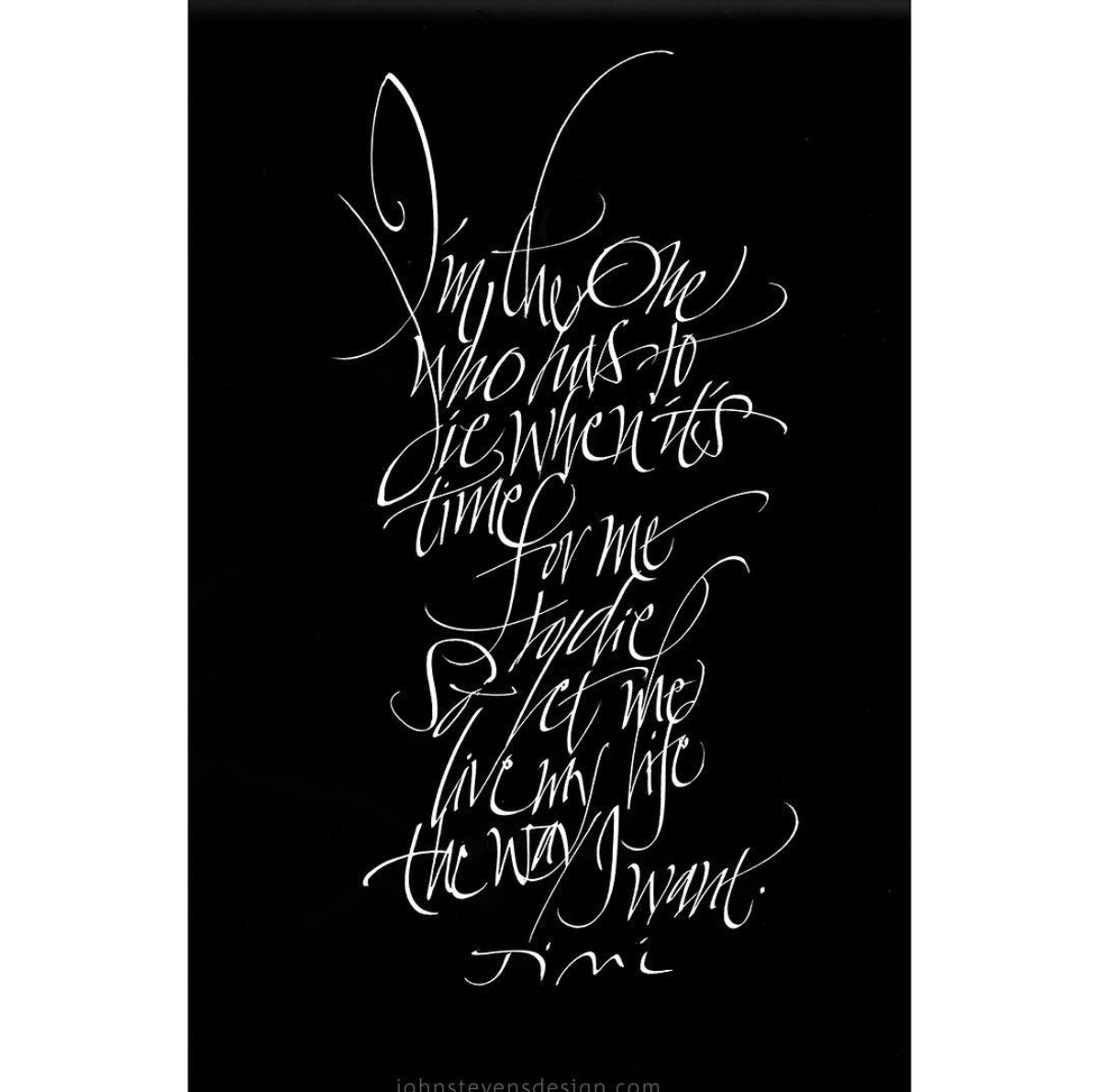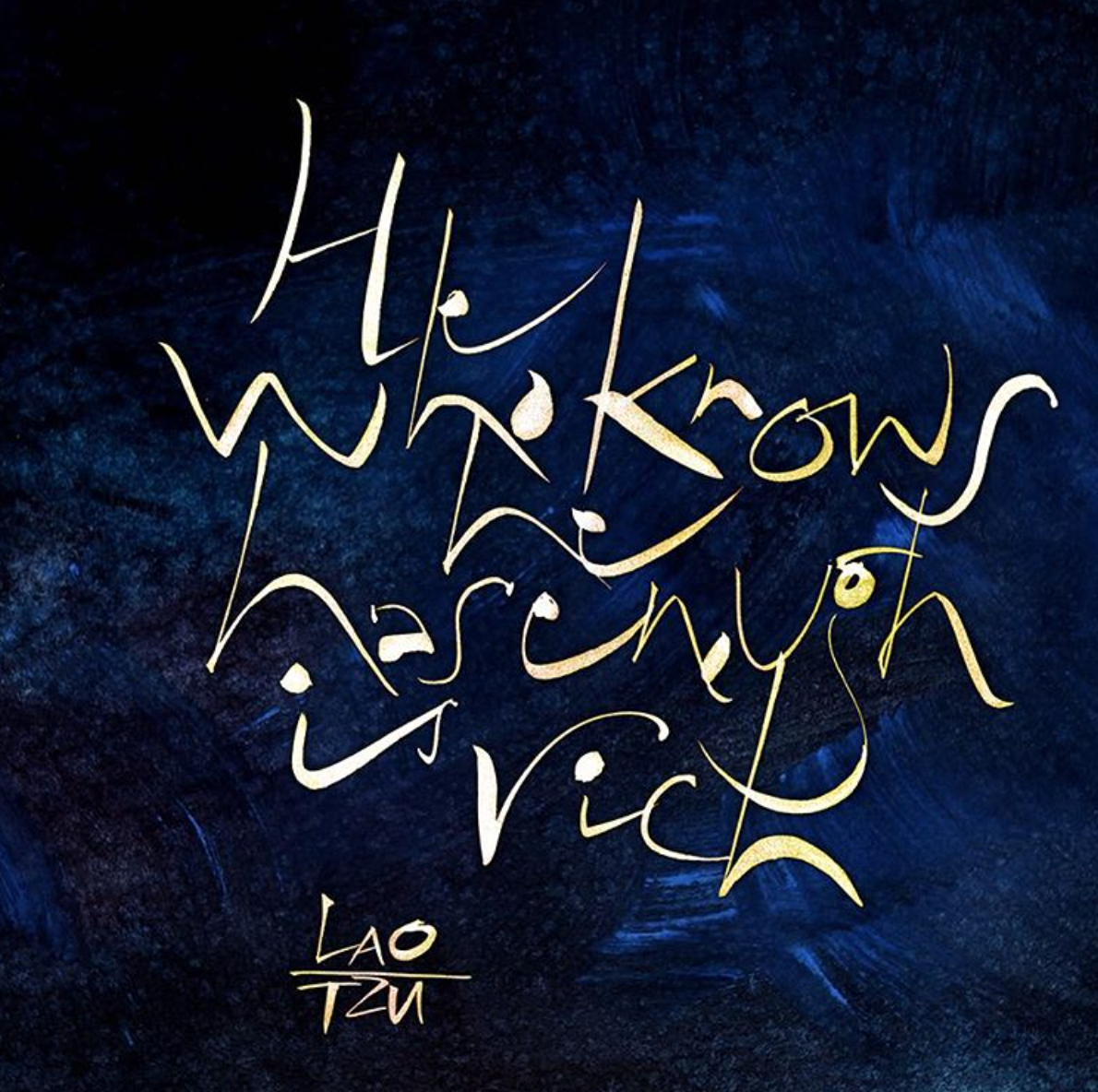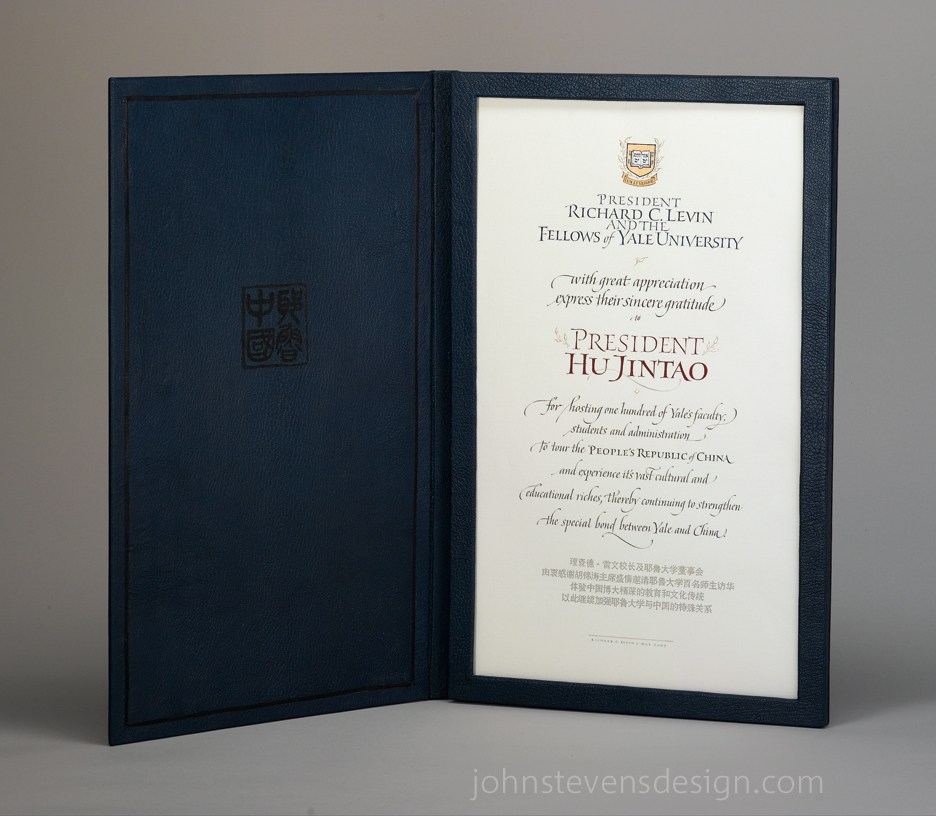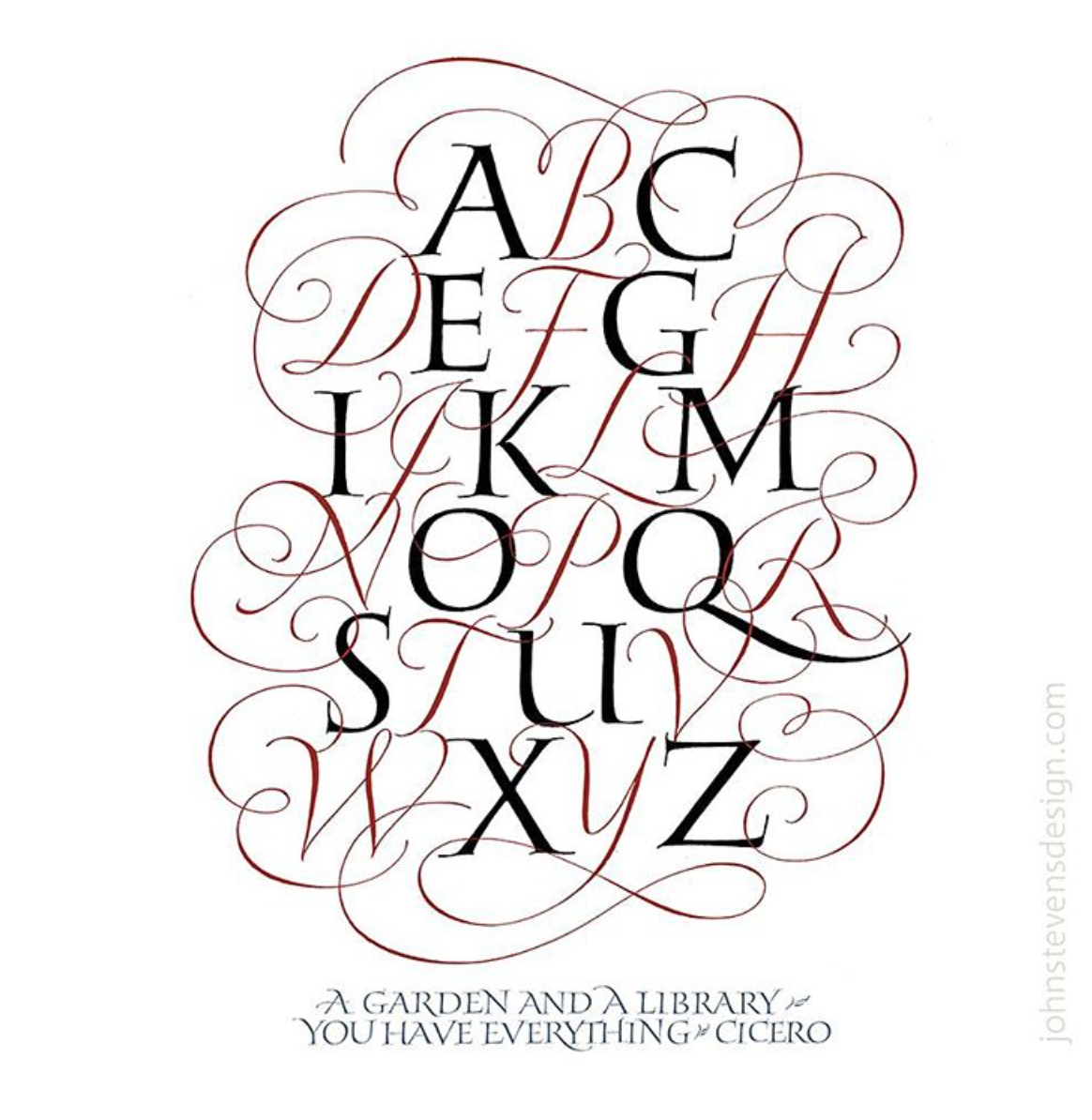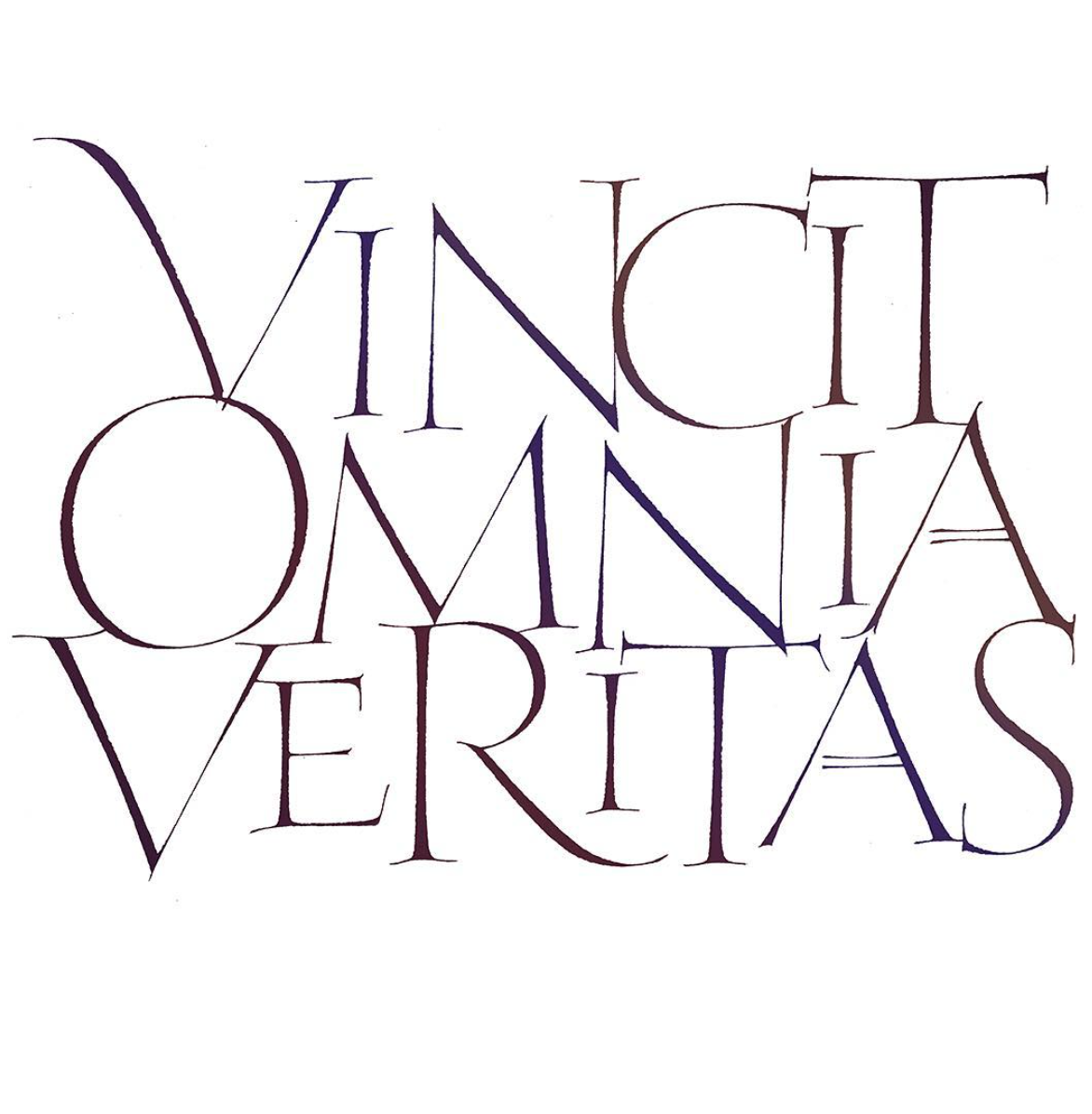
Lettering Legend - John Stevens Interview
John Stevens is a truly accomplished lettering artist, with many years of experience and a great deal of wisdom. A number of lettering artists dream of not only having John’s skills but also his confidence too. One moment John could be lettering a beautifully precise and elegant certificate using calligraphy, the next moment he could be creating a piece of brush lettering with loose flowing letters. John is a master of many lettering styles and there seems to be no end to where his talents lie.
John has written a book titled ‘Scribe’, has lettered a number of prestigious certificates and awards, some of which have been given to Presidents, and has many other achievements to his name. John actively teaches lettering through retreats, lectures and workshops. Quite recently John led a lecture for Type@Cooper about expression, form, rhythm and movement within lettering. It’s really worth watching if you haven’t already seen it.
John shares some very detailed and in depth thoughts on the significance of learning and understanding Roman letterforms. He also provides insight into mastering many styles of lettering and tips for lettering the whole alphabet through addressing composition, along with so much more in the following interview.
The president of the United States approaches you and asks you to re-letter the Declaration of Independence, there was a tragic incident with a cup of coffee. How would you letter it, and why?
"Ok, a fun question...in the same vein as how would I like to live on Jupiter.
I will try to buy in: If such a thing happened, the best conservators in the world would be called in to repair the original. BUT, sticking to your premise, and assuming we are not talking about forging a duplicate... in any case, it would take months. Since I am reporting to the President, (and would show lots of ideas / options just to extend my visits, I would read a typeset version of the text and probably be stressed about whether I am to do a period piece or a modern interpretation.
Ultimately, I would emphasize what I think should be emphasized; a kind of editing by design, then there would be an interesting content / form balancing act to engage me. I would ask myself "why does this need to be hand-lettered" (which would figure into my design decisions) Hermann Zapf's Preamble to the Charter of the United Nations would be a good role model. Form / function would play a huge part (where other words, I could play with meaning a bit more).
The honest truth? I have no idea. Either way, I would take the job."
Roman letterforms influence a portion of your work, do you think it’s important for anyone new to lettering to spend time studying Roman letterforms, or is it just a style that took your interest?
"The Roman letter has endured 2000+ years and counting. My whole understanding of calligraphy and letter design stems from the simplicity within the complexity that the Roman letters present us with. So, my model of learning is that there should be a lot of theory / background knowledge to this, not merely aping the movements of an exemplar. Sensitivity to form, nuance, power, etc. Its not the final word on calligraphy, but it is a pathway to many of the important aspects / issues that have enlightened me.
Letterform and design theory interest me. I am aware that is not true for everybody. There are also technical issues that when confronted make you a stronger calligrapher. Styles become popular and then they get tired, but not Roman letters.
“When in doubt, use Roman Capitals”. - Edward Johnston
Let’s not overlook the fact that Roman Capitals are a structure that presents a lot of expression opportunities: kind of like the human figure. It is not one fixed style. I work them along a continuum between formal - informal with shades of grey in between.
My basis for lettering starts with: Capitals | > Minuscules | > Cursive... = meaning with these 3 basic structures, you can make anything (if you know what you are doing). Style emerges over time with working those themes and variations.
The other influences are 1. World calligraphy 2. Writing (from scratching marks into walls to handwriting) 3. Design."
The amount of movement and rhythm reflected in your work is incredible, and you appear to create your work fearlessly. What would you suggest for those that struggle with fear when trying to add movement and rhythm to their own work, and have difficulties making loose strokes or bold moves with their pencil, pen or brush?